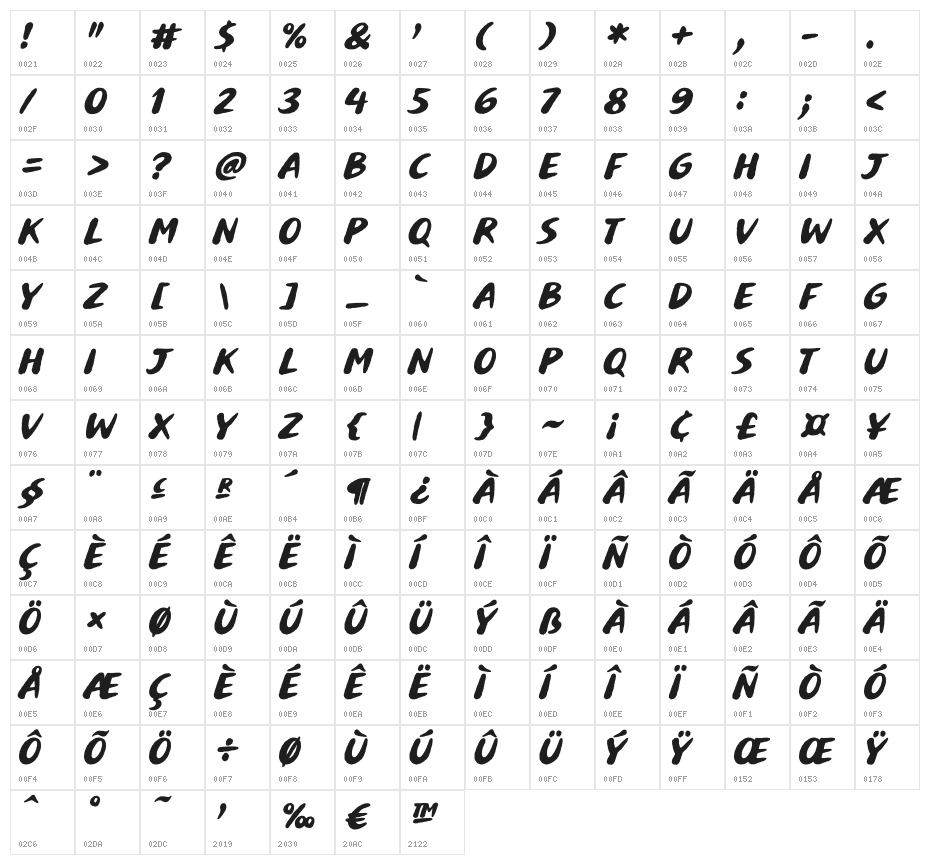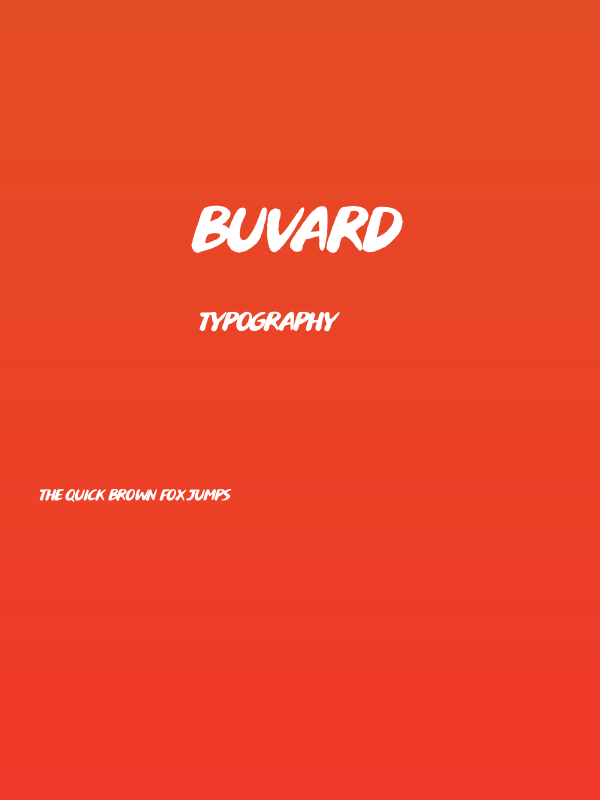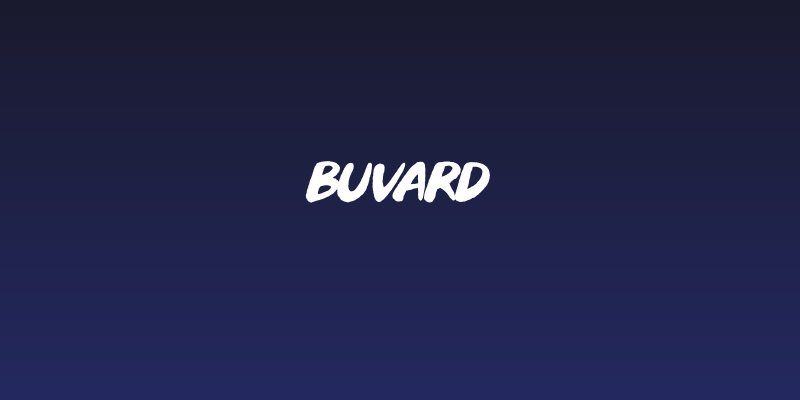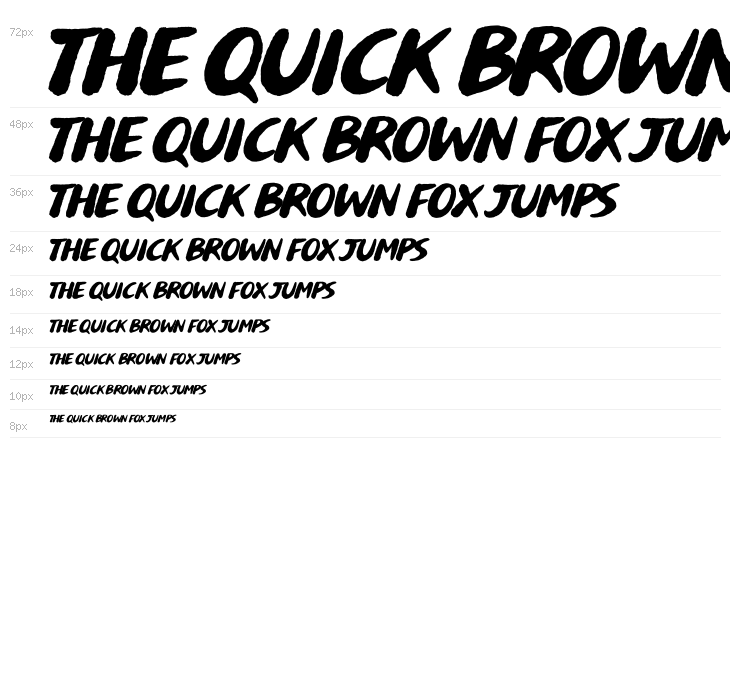
Buvard Font
Buvard Description
This font exudes a bold and dynamic presence, characterized by its thick, brush-like strokes that convey a sense of energy and movement. The letters are slightly slanted, adding a casual and informal touch, while maintaining a strong and impactful appearance. The uppercase and lowercase letters are well-balanced, with consistent stroke widths that enhance readability. The numerals and special characters follow the same stylistic approach, ensuring a cohesive look across all elements. This font is ideal for projects that require a bold statement, capturing attention with its expressive and artistic style.
| Proposed Projects | Ideal for branding, posters, headlines, and any design needing a bold, artistic touch. |